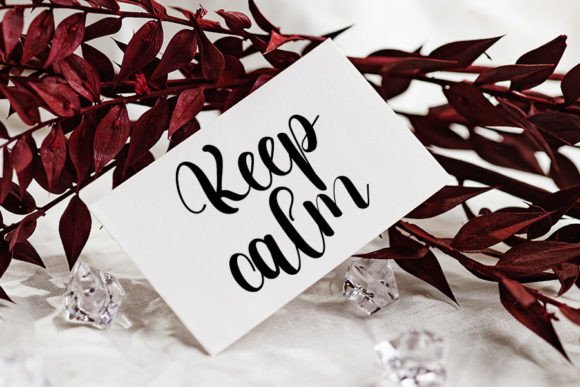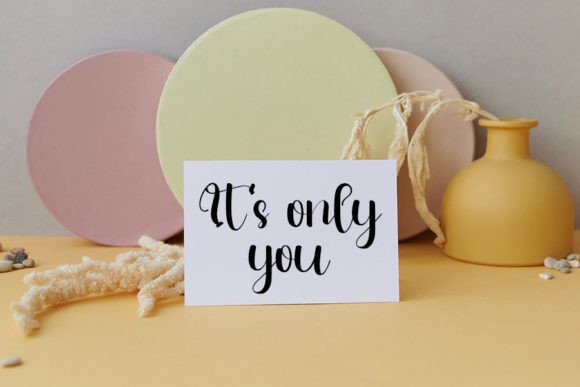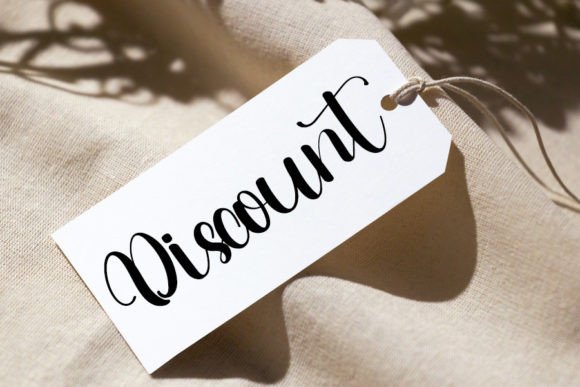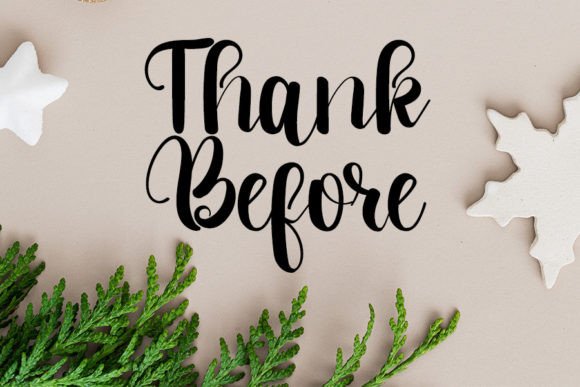
Hallo Rainbow Font: Elevate Your Designs with a Touch of Timeless Elegance
In the world of typography, few fonts manage to capture the essence of both modern style and classic elegance. Hallo Rainbow Font is one such exceptional typeface that brings together the best of both worlds. This stylish handwritten font, with its contemporary atmosphere and impeccable form, is inspired by timeless classic calligraphy. Whether you’re a designer looking to add a touch of sophistication to your projects or a crafter aiming to create visually stunning content, Hallo Rainbow Font is an excellent choice.
The Inspiration Behind Hallo Rainbow Font
Hallo Rainbow Font draws its inspiration from the rich heritage of classic calligraphy, yet it presents itself with a fresh and modern appeal. The creators of this font have meticulously crafted each letter to reflect a balance of traditional elegance and contemporary flair. This blend makes Hallo Rainbow Font versatile and suitable for a wide range of design projects, from wedding invitations and branding materials to digital content and craft projects.
Key Features of Hallo Rainbow Font
- Stylish Handwritten Appearance: Hallo Rainbow Font boasts a stylish handwritten look that adds a personal touch to any project. Its elegant strokes and fluid connections between letters give it a natural and effortless feel.
- Contemporary Atmosphere: Despite its classic inspiration, Hallo Rainbow Font exudes a contemporary vibe that makes it perfect for modern design projects. Its clean lines and balanced structure ensure it looks great in both digital and print formats.
- Impeccable Form: The font’s design emphasizes impeccable form, ensuring that each letter and character is beautifully crafted. This attention to detail makes Hallo Rainbow Font stand out in any design.
- Balanced and Varied: Hallo Rainbow Font is designed to be balanced and varied, offering a range of characters and glyphs that can be used to create visually interesting and dynamic text. This variability makes it ideal for longer texts and creative projects.
Uses of Hallo Rainbow Font
The versatility of Hallo Rainbow Font makes it suitable for a multitude of design projects. Here are some popular uses:
- Wedding and Event Invitations: Add a touch of elegance and romance to your wedding invitations, save-the-date cards, and other event-related materials.
- Branding and Logo Design: Use Hallo Rainbow Font to create unique and memorable brand identities that stand out from the competition.
- Digital Content: Enhance your blog posts, social media graphics, and website content with a stylish and contemporary font that captures readers’ attention.
- Crafting and DIY Projects: Whether you’re creating handmade cards, scrapbooking pages, or other craft projects, Hallo Rainbow Font can add a professional and polished look.
Tips for Using Hallo Rainbow Font Effectively
To get the most out of Hallo Rainbow Font, consider the following tips:
- Pair with Complementary Fonts: Combine Hallo Rainbow Font with simpler fonts to create contrast and hierarchy in your designs.
- Adjust Letter Spacing: Experiment with different letter spacings to find the perfect balance for your project.
- Use Color Wisely: Take advantage of the “Rainbow” aspect of the font by using colorful designs, or opt for classic black and white for a more timeless look.
Hallo Rainbow Font is a stylish and versatile typeface that brings a touch of timeless elegance to any design project. Its unique blend of classic calligraphy and modern style makes it an excellent choice for designers and crafters alike. With its impeccable form, balanced and varied characters, and wide range of applications, Hallo Rainbow Font is sure to become a favorite in your typography arsenal.
Whether you’re looking to create stunning invitations, craft beautiful brand identities, or simply add a touch of sophistication to your digital content, Hallo Rainbow Font is an exceptional tool that can help you achieve your creative goals.